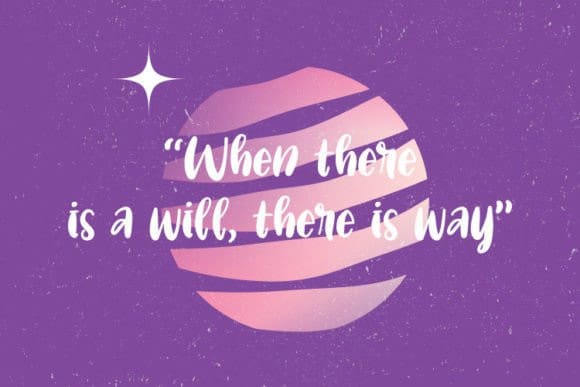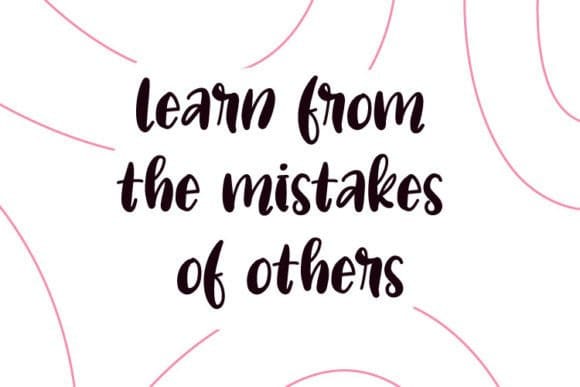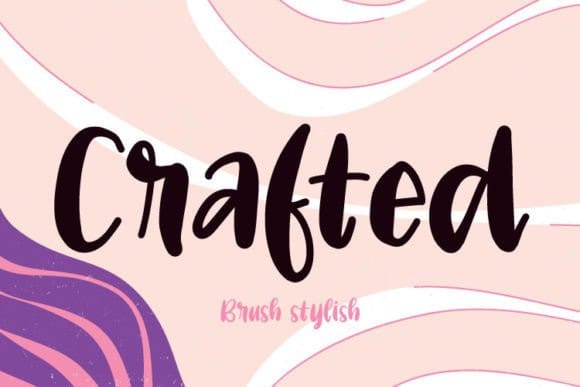
Crafted Brush Font
Crafted Brush Font is a clean, cute, and adaptable brush font that can be used for various designs! Its authentic vibe will add a personal and realistic feel to your designs.